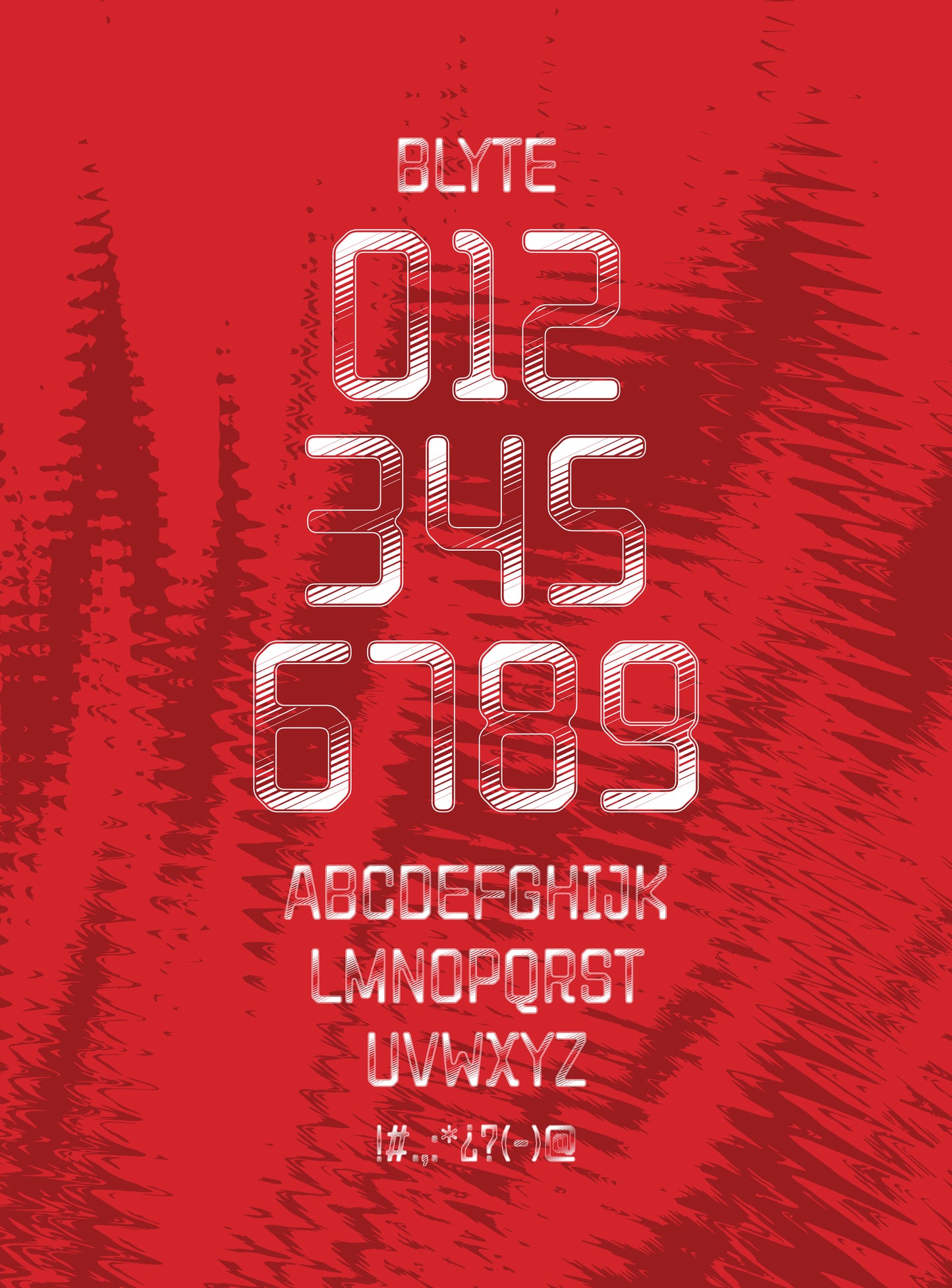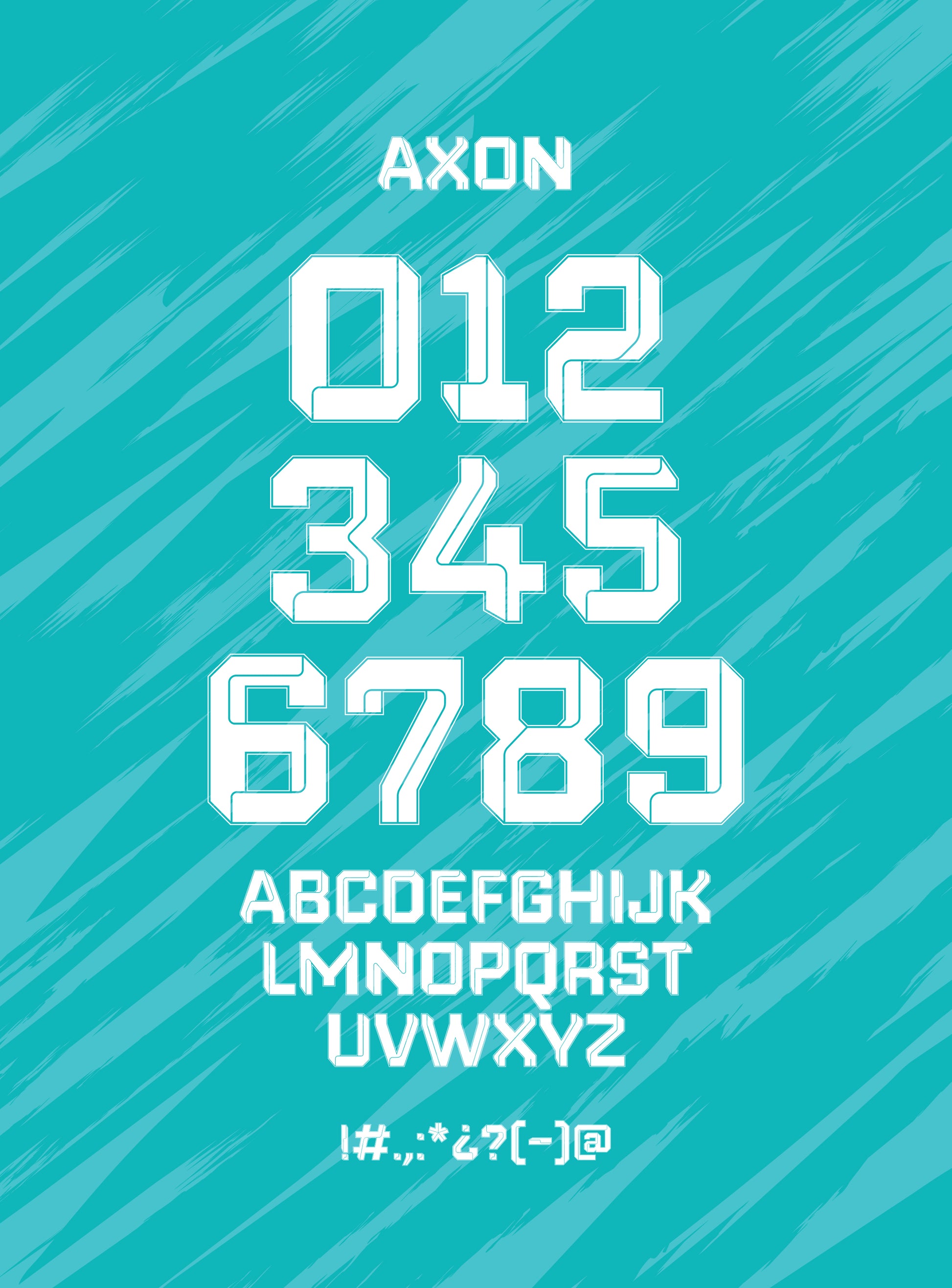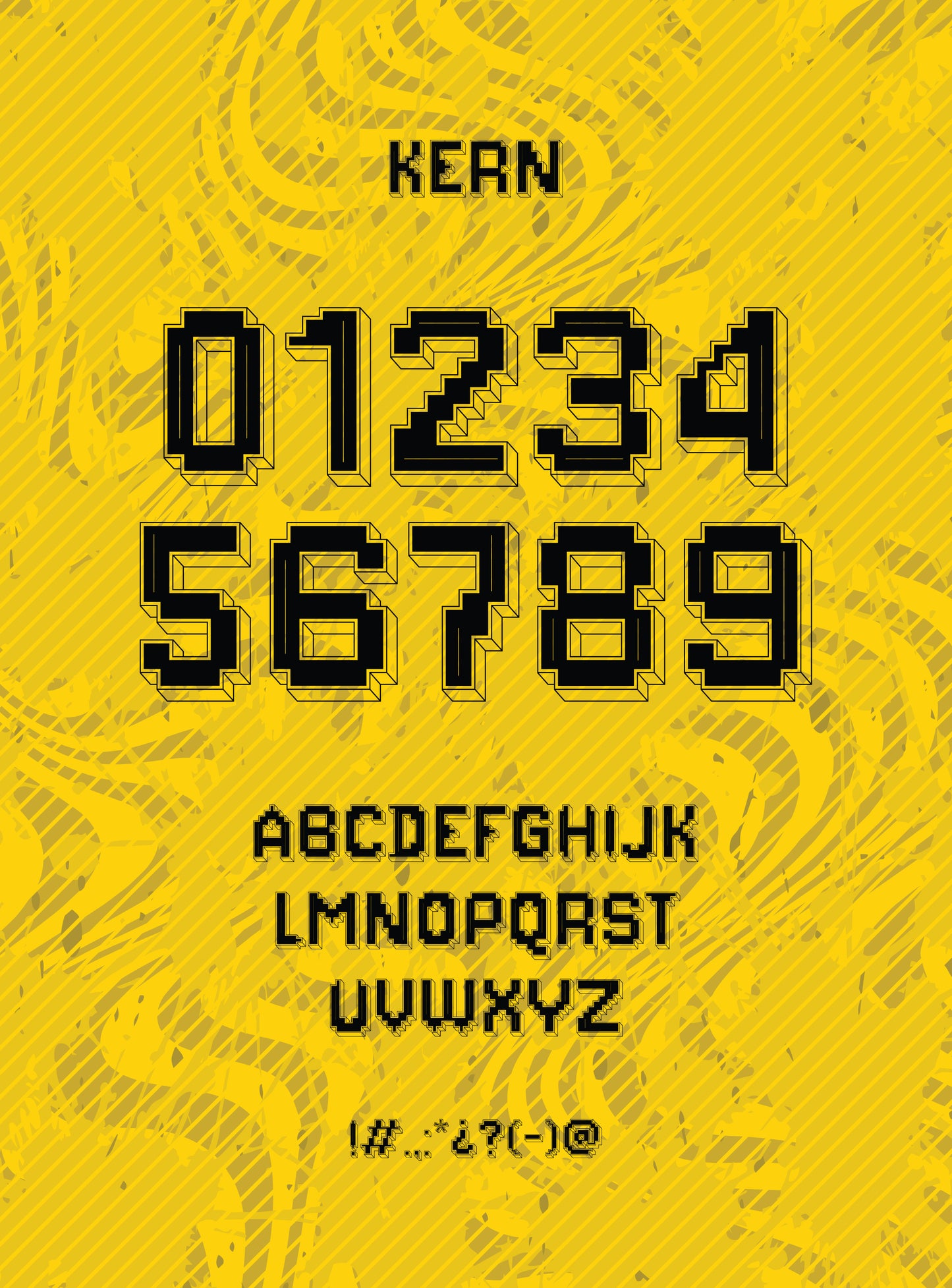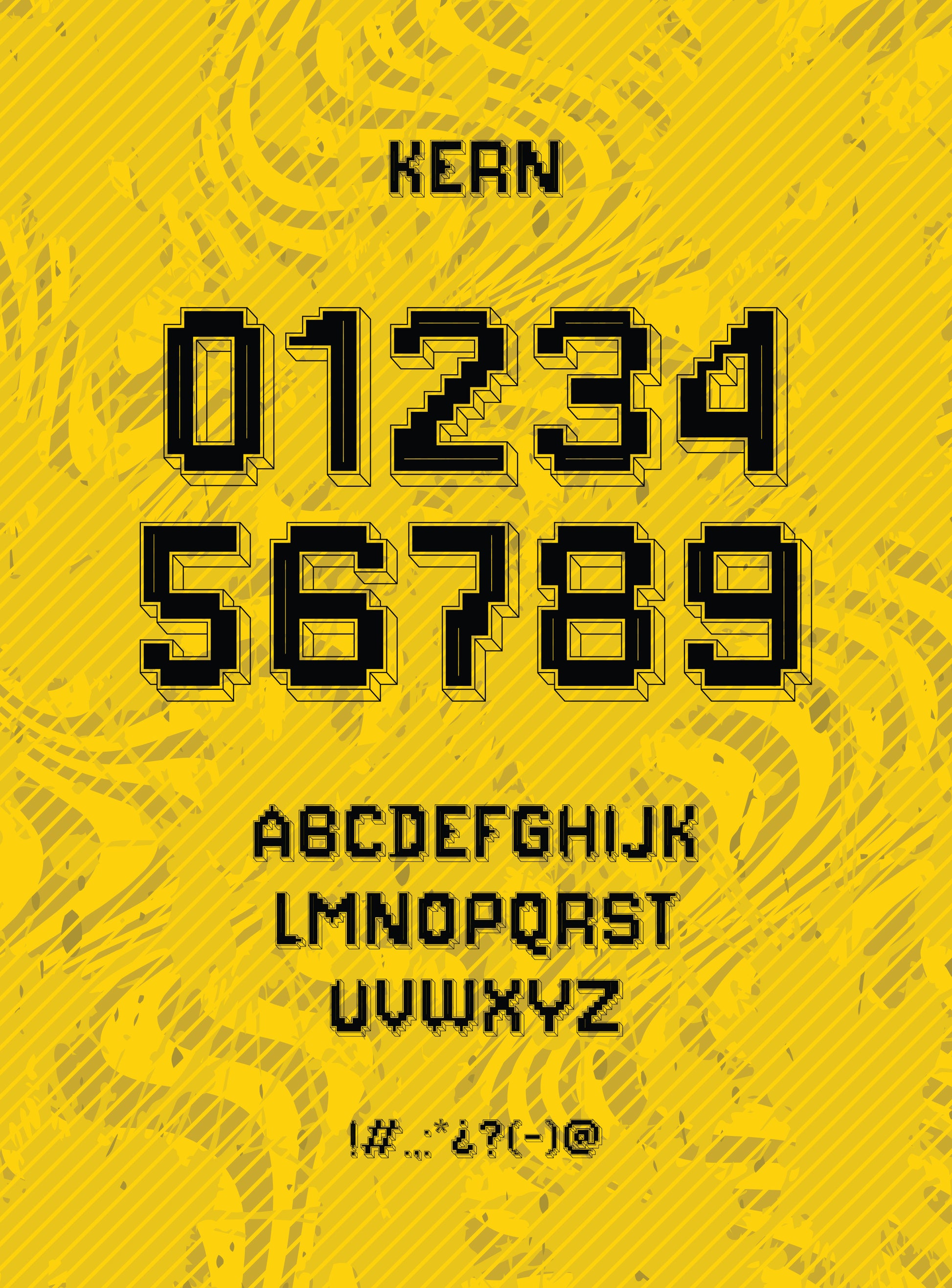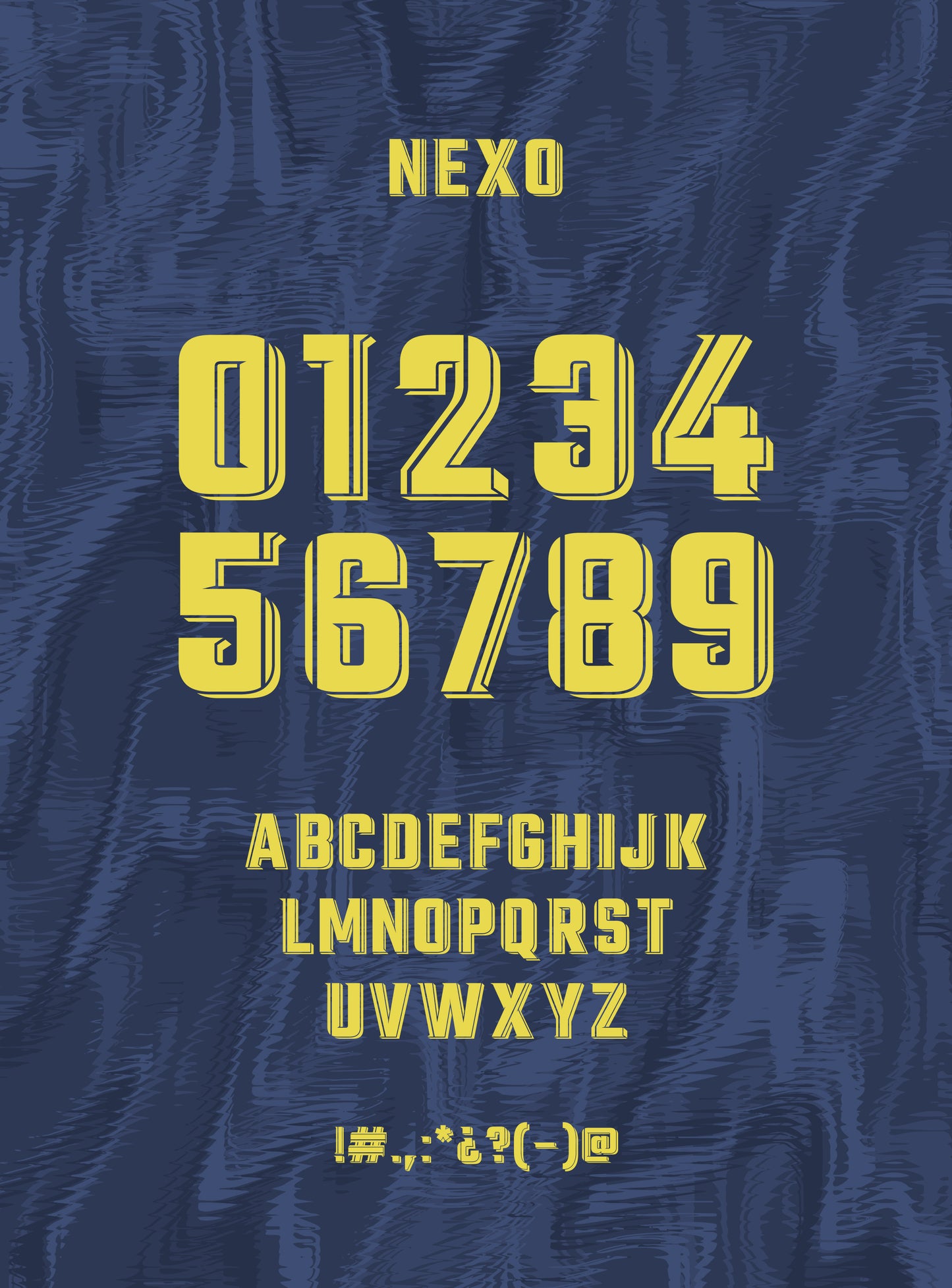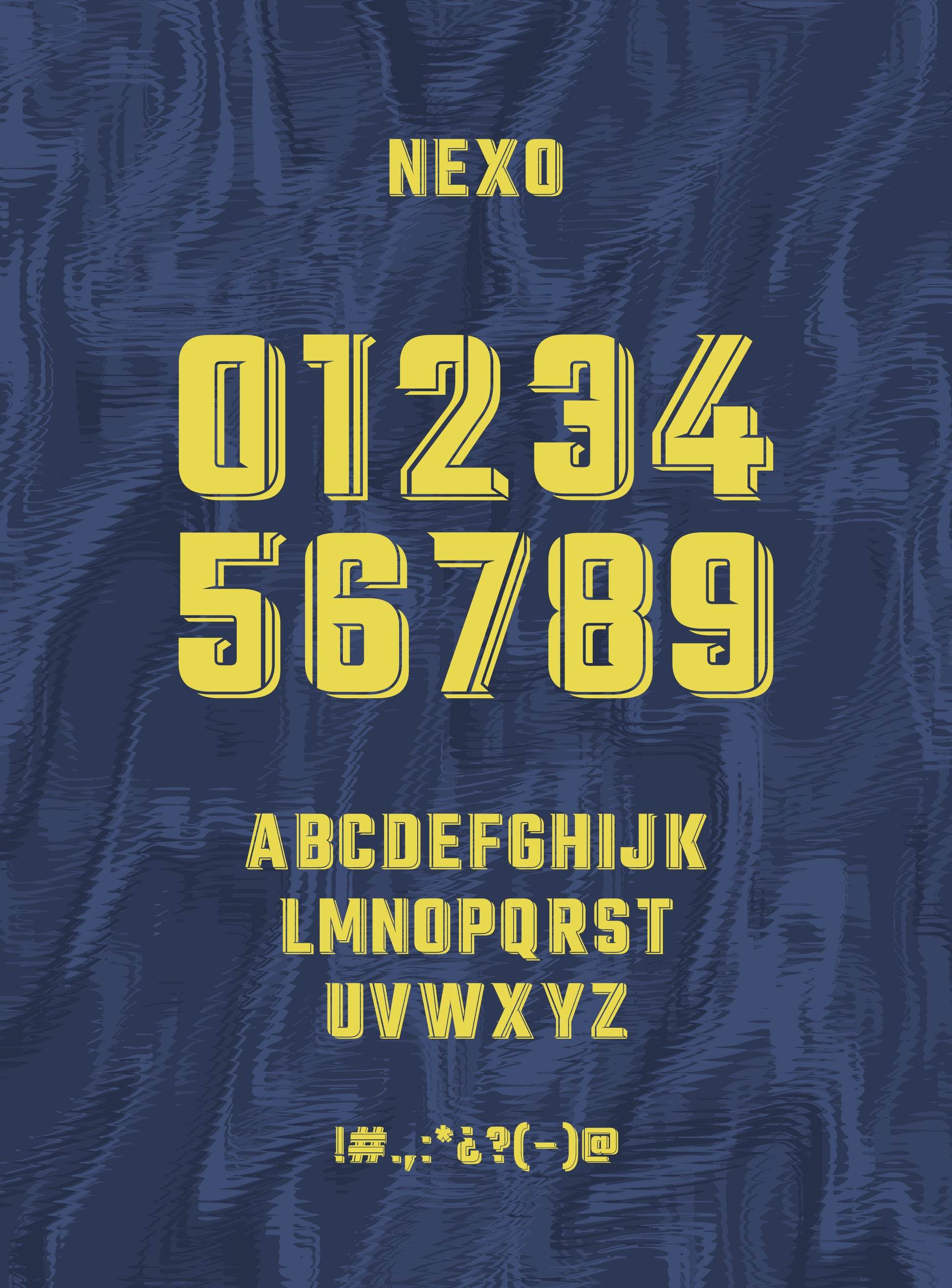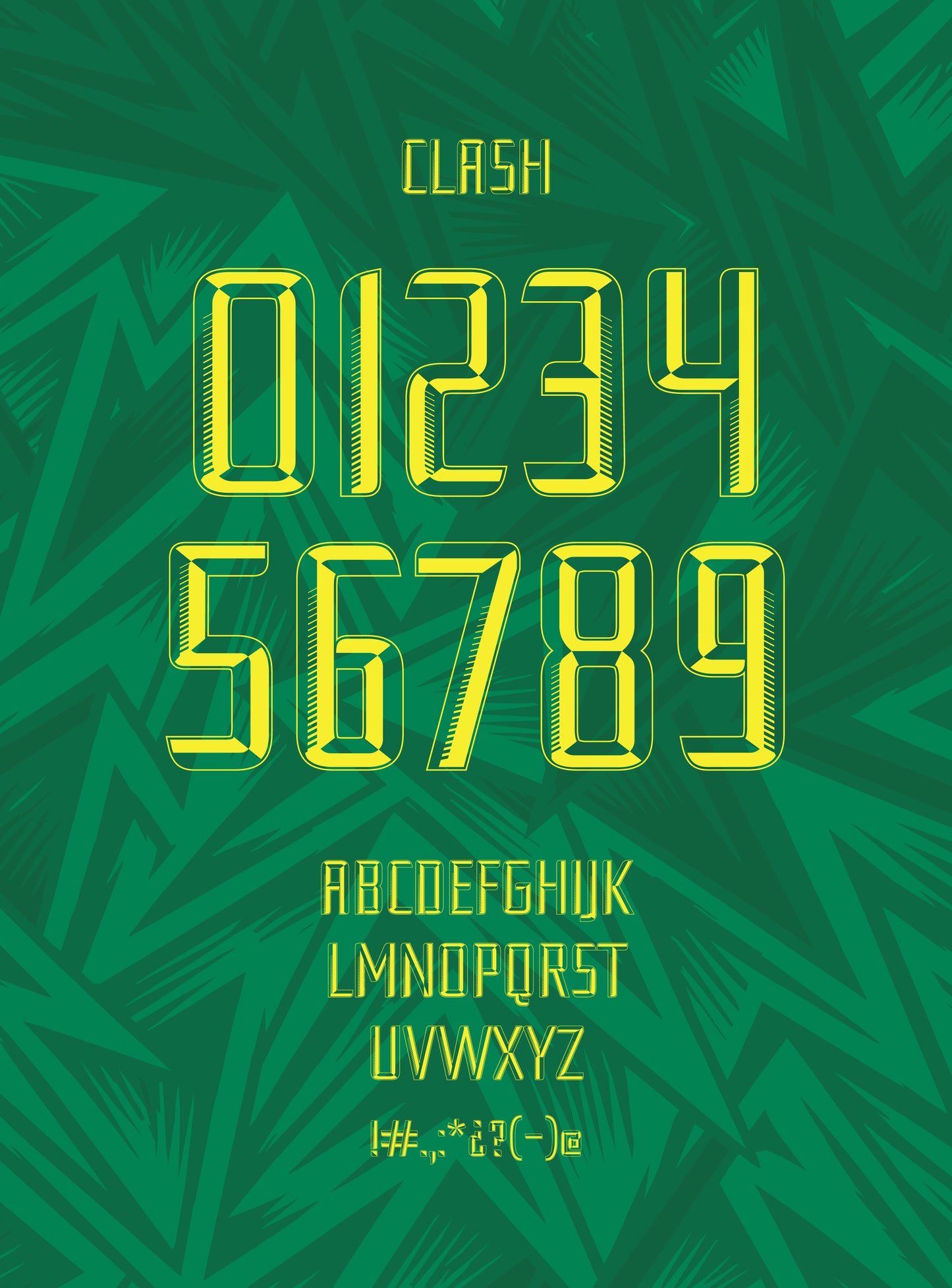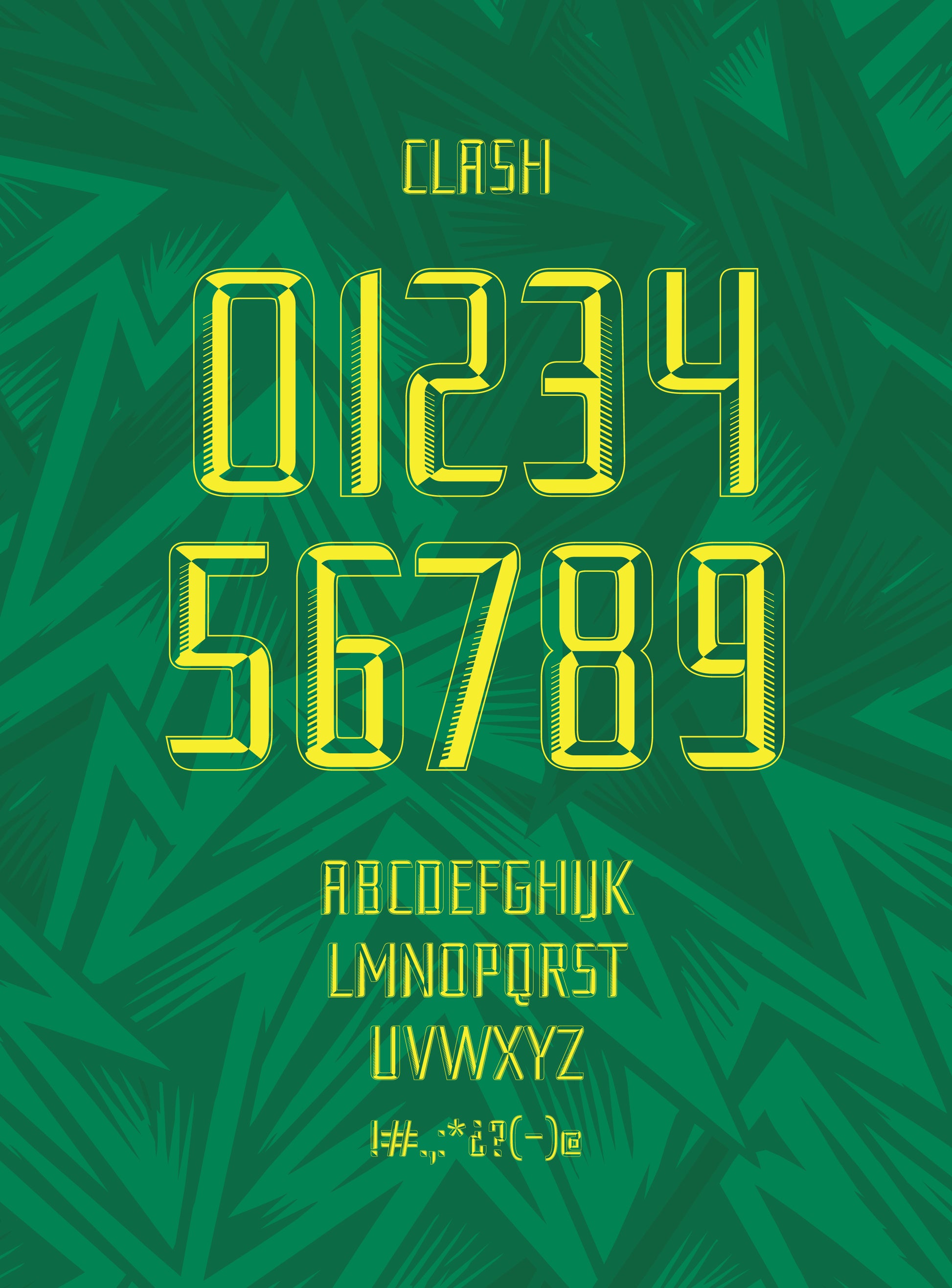
Build stronger sports uniforms with one complete font collection.
The Sports Font Pack brings together 5 original display fonts — AXON, BLYTE, CLASH, KERN, and NEXO — created specifically for sports uniforms, jerseys, player names, and numbers.
From bold geometric shapes to condensed, technical, and modern styles, this collection gives you multiple options to create distinctive uniform designs for different teams, sports, and visual identities.
✔ 5 sports fonts: AXON, BLYTE, CLASH, KERN & NEXO
✔ Designed for sports uniforms, jerseys, player names, and numbers
✔ Each font includes uppercase letters A–Z
✔ Includes numbers 0–9
✔ Includes selected punctuation marks and special characters
✔ Includes supported accented uppercase characters and Spanish characters
✓ Multiple font styles in one collection for greater creative flexibility